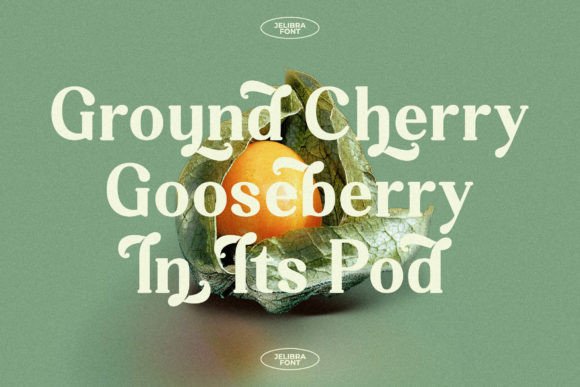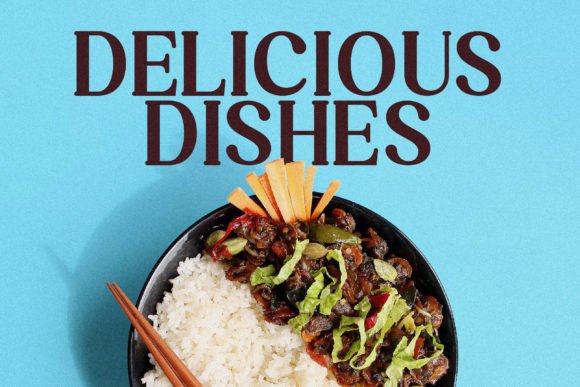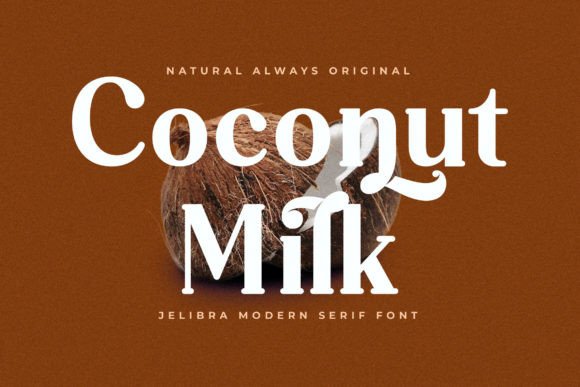
Introduction to Jelibra Font
Have you ever found yourself stuck in front of a blank design canvas, desperately searching for the perfect font to bring your creative vision to life? It’s a moment many designers can relate to. As you scroll through endless options, one name often stands out: Jelibra Font.
This sophisticated serif font is a design treasure trove, boasting a fashionable touch that’s perfect for luxury and elegant projects. Its high-quality design makes it an ideal choice for creating modern, chic designs that exude sophistication and style. Whether you’re working on a creative project that requires a touch of femininity or a design resource that demands elegance, Jelibra Font is a valuable asset in your design toolkit.
Key Features of Jelibra Font
- High-quality design resource ideal for creative projects, offering a unique and stylish look.
- Designed to be versatile and adaptable, the Jelibra Font can be used in a range of creative projects, from graphics to web design.
Honest Review: Jelibra Font
I recently stumbled upon the Jelibra Font and was excited to dive in and see what it had to offer. As a designer, I’m always on the lookout for new high-quality design resources to elevate my creative projects.
First impressions are everything, and the Jelibra Font definitely makes a statement. The font’s unique, whimsical style is perfect for adding a touch of personality to your design. Plus, it’s a free download, making it an excellent addition to any designer’s toolkit.
- ✨ The font’s high-quality design ensures that it looks crisp and clear, even at larger font sizes.
While the Jelibra Font is a great addition to any designer’s toolkit, there are a few limitations to be aware of: ⚠️ the font may not be suitable for all design projects, particularly those requiring a more formal or traditional look. Additionally, the font’s unique style may not be to everyone’s taste.
Overall, I’m impressed with the Jelibra Font and would definitely recommend it to designers looking for a high-quality, free design resource. With its unique style and transparent background, it’s a great addition to any creative project.
Tips for Getting the Most Out of Jelibra Font
To get the most out of the Jelibra Font, use it on a transparent background to create a clean and minimalist design. You can also experiment with different font sizes and styles to add visual interest to your creative project.
Common Use Cases for Jelibra Font
The Jelibra Font is ideal for use in logos, headings, and body text for various creative projects, including digital marketing materials, print materials, and websites.